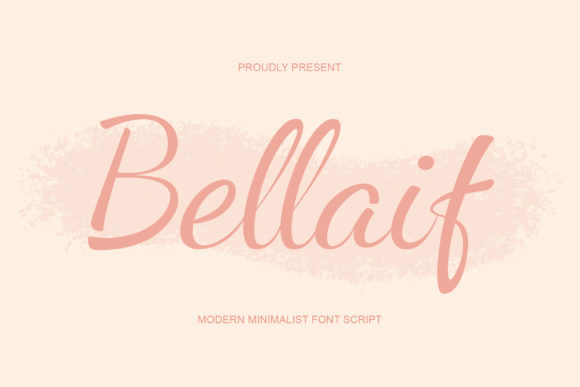
**Introducing Bellaif Font: Where Charm and Elegance Meet**
Step into the enchanting world of Bellaif Font, a captivating script that exudes sweetness and warmth. Its delicate curves and flowing strokes evoke a sense of nostalgia, beckoning you to create designs that resonate with emotion. Whether you're crafting heartfelt letters, designing whimsical invitations, or adding a touch of charm to your digital projects, Bellaif Font is the perfect choice to make your words come alive.
**A Symphony of Styles for Every Occasion**
With Bellaif Font's comprehensive range of styles, the possibilities are endless. From the graceful elegance of Bellaif Regular to the playful exuberance of Bellaif Bold, each variation embodies a unique personality. Express your heartfelt emotions with the delicate touch of Bellaif Light, or make a bold statement with the assertive strokes of Bellaif Black. The choice is yours, allowing you to tailor your designs to perfectly match your vision.
**A Font that Ignites Creativity**
Bellaif Font is not merely a collection of characters; it's an invitation to unleash your creativity. Its versatility knows no bounds, making it the perfect choice for a wide array of projects. Whether you're designing eye-catching logos, creating captivating social media posts, or adding a touch of whimsy to your website, Bellaif Font will elevate your designs to new heights.
**A Perfect Match for Every Design**
Bellaif Font's natural and unique style makes it an incredibly fitting choice for a large pool of designs. Its charming curves and flowing strokes add a touch of elegance to any project, making it perfect for everything from wedding invitations to product packaging. The only limit is your imagination!
**Embrace the Power of Bellaif Font Today**
Don't settle for ordinary fonts that fail to capture the essence of your designs. Choose Bellaif Font and experience the transformative power of a truly captivating script. Let its sweet and friendly nature infuse your projects with warmth and charm, creating designs that leave a lasting impression.